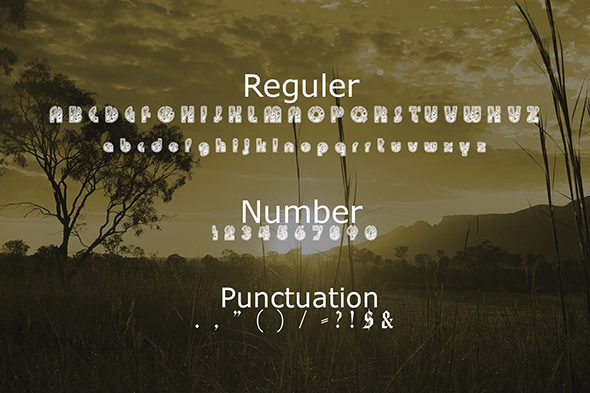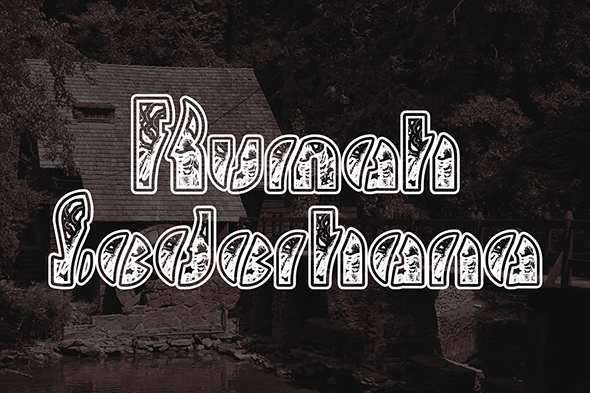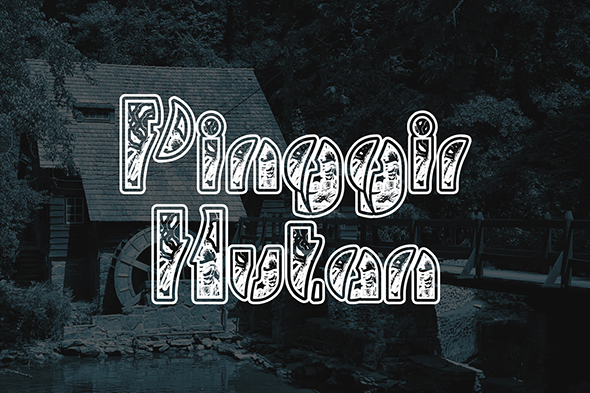
Rondholeno Font
About Rondholeno Font
Rondholeno is a truly unique typeface! It can be used for various purposes such as: headlines, book covers, posters, invitations and much more! Perfect for those who like to be creative!